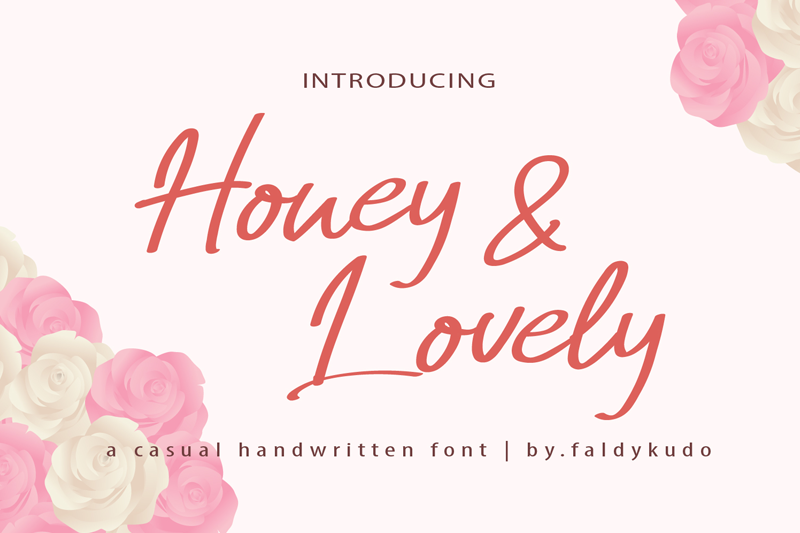
Preview and download Honey & Lovely Font. Created by Faldy Kudo in Script Handwritten styles with Demo license.
Font name: | Honey & Lovely |
Author: | Faldy Kudo |
This font is Demo version,just for personal use only Ligature and Swash not included in this version Honey & Lovely is a casual handwritten, carefully handcrafted to become a true favorite. Whether you�re looking for fonts for Instagram or calligraphy scripts for DIY projects, this font will turn any creative idea into a true piece of art! To use all feature and for fullversion please visit link https://www.creativefabrica.com/product/honey-lovely/ref/216322/ Thank you |